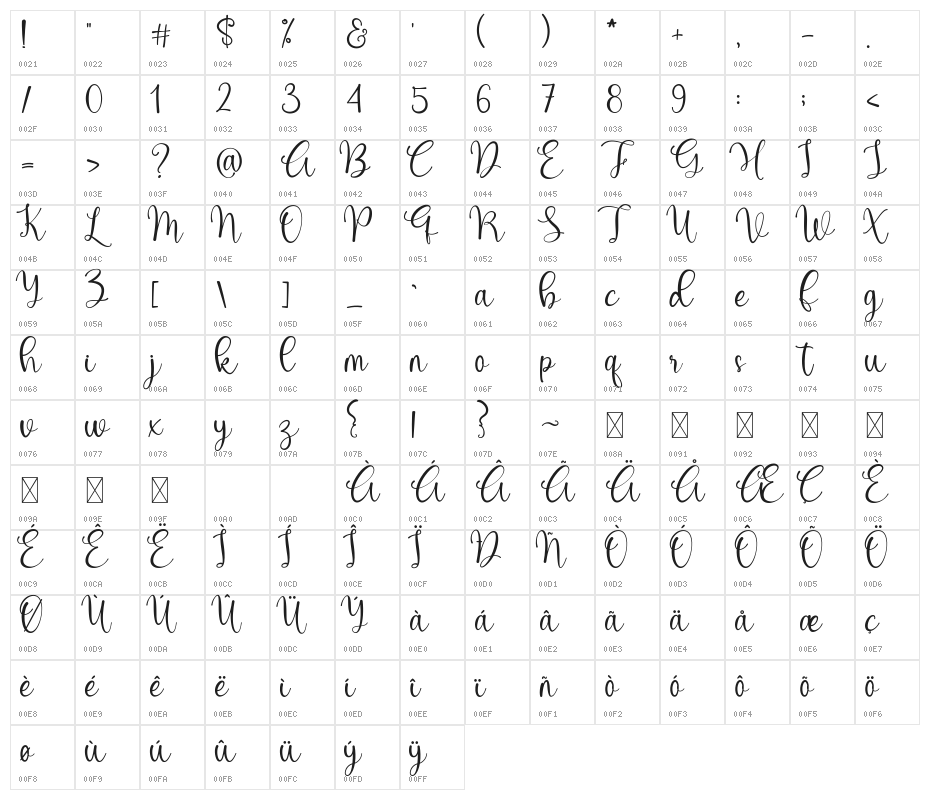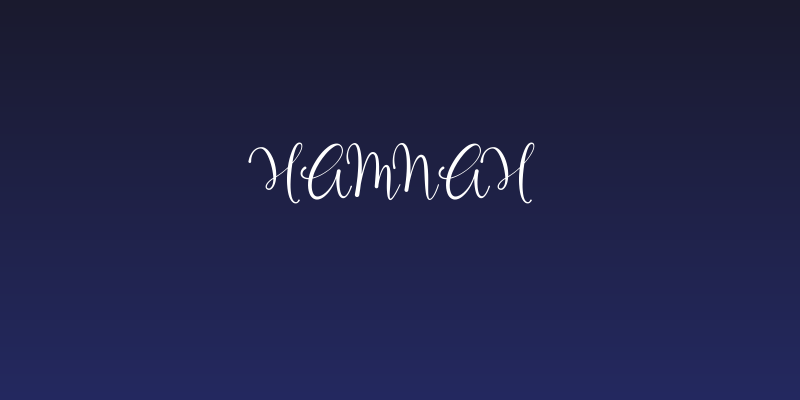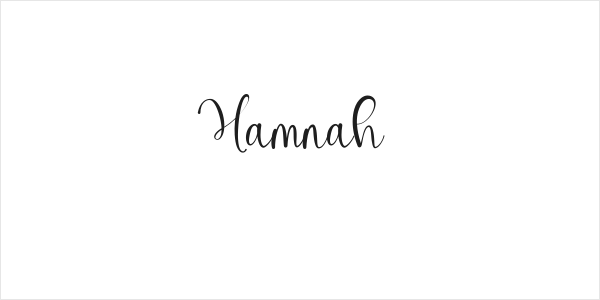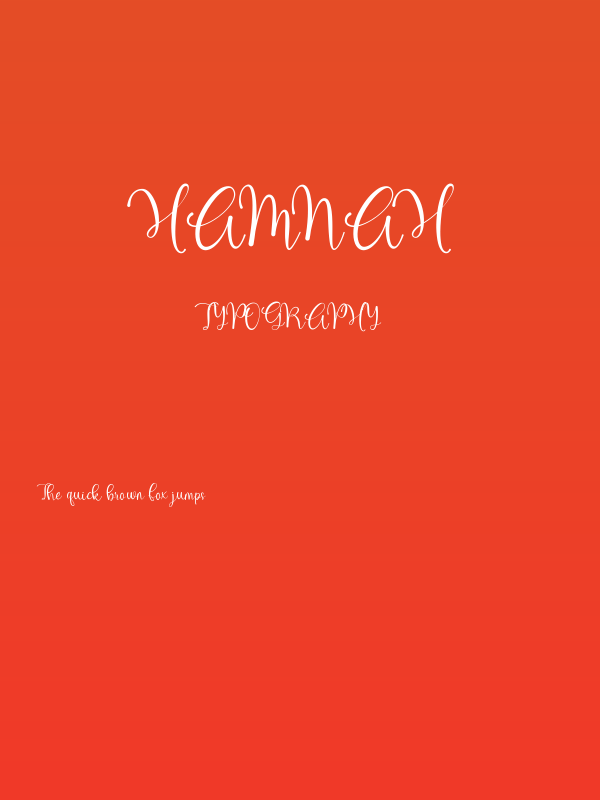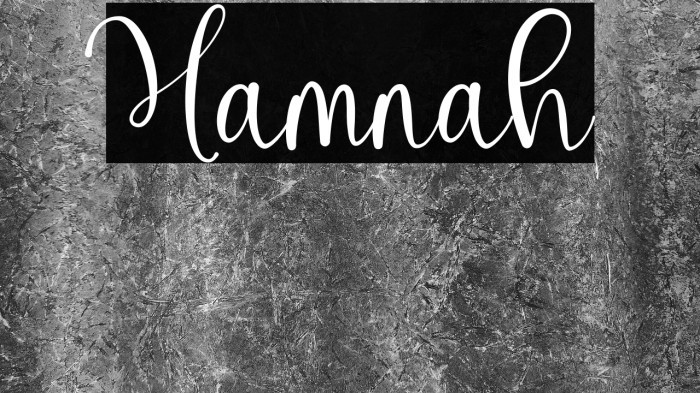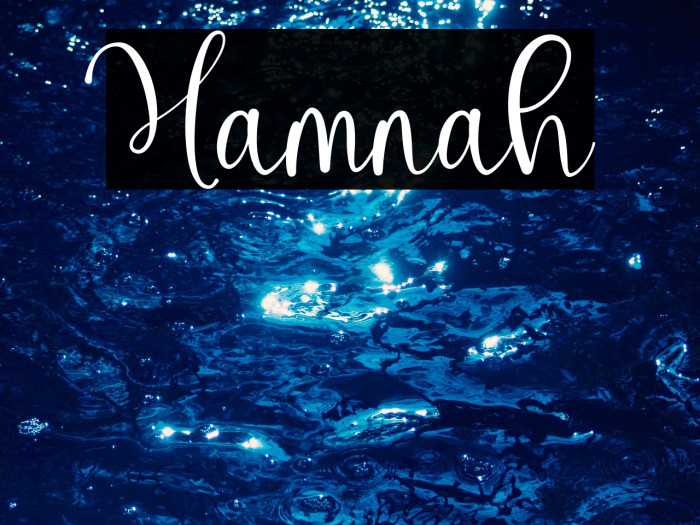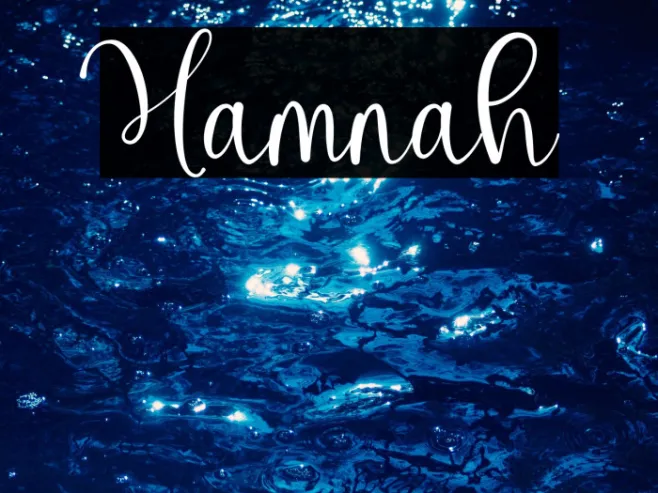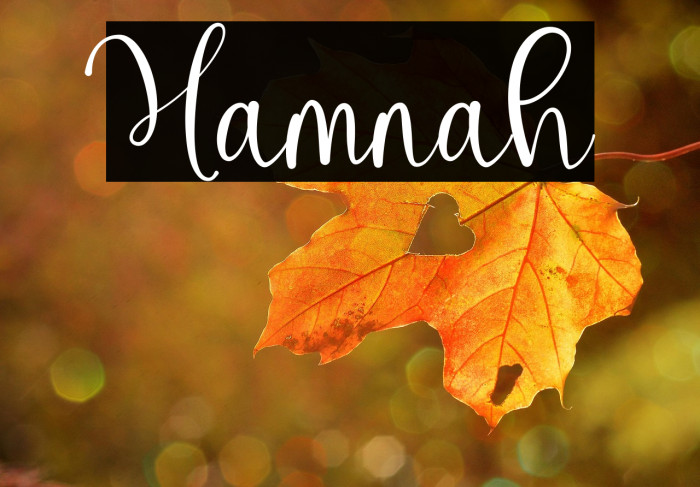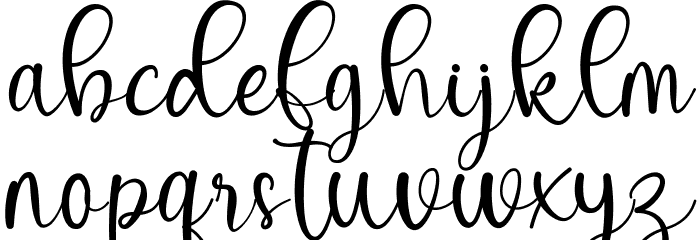
Hamnah Font
Hamnah Description
This font features an elegant and flowing script style, characterized by its smooth, cursive letterforms that mimic the fluidity of handwriting. The uppercase letters are ornate, with loops and swirls that add a touch of sophistication, while the lowercase letters maintain a consistent rhythm and balance. The numerals are distinct and clear, complementing the overall aesthetic. Special characters are designed with the same attention to detail, ensuring a cohesive look across all glyphs. This font is perfect for projects that require a personal and artistic touch.